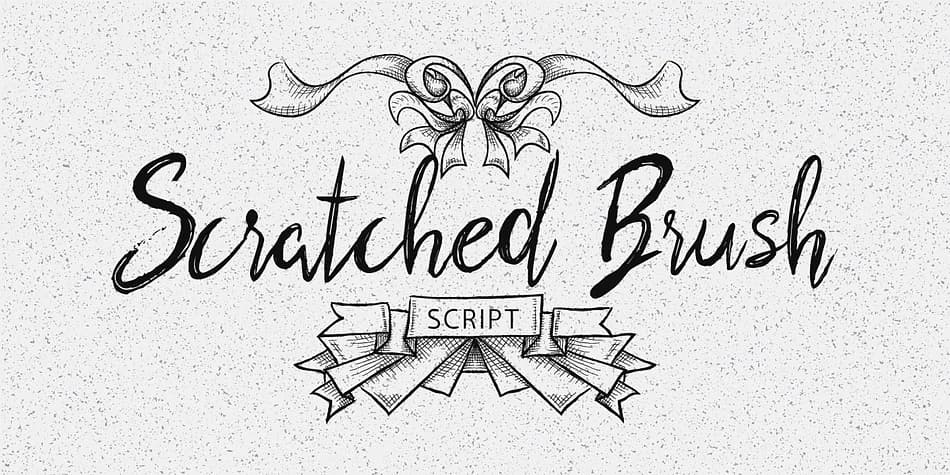
The raw, textured strokes of Scratched Brush Script capture the organic character of brush lettering without looking computer-generated. Designed by Pedro Teixeira, this casual script channels the natural imperfections you get from real dry brush work, giving it an approachable, hand-drawn quality that feels genuinely authentic and lived-in.
What sets this font apart is its flexibility and thoughtful attention to detail. The alternate lowercase characters let you swap glyphs within words, breaking up repetition and adding visual interest to your compositions. This makes it work especially well for wedding invitation suites, Etsy product labels, indie cosmetics packaging, and DIY craft signage where that artisanal aesthetic truly matters. You can also use it confidently for greeting cards, hand-lettered menu cards, and small-batch stationery projects.
The brushed texture runs through every letterform, reinforcing the handmade feel across headlines and display text. It's the kind of typeface that rewards a little attention: viewers sense the craftsmanship in the stroke weight variation and rough edges. Both freelance designers building client brands and makers creating product packaging will find that Scratched Brush Script feels natural and intentional on the page. Grab it on Creative Fabrica and start exploring what those alternates can do for your next project.
Scratched Brush Script Font is a script font that shines as a display or heading face. Pair it with a clean sans-serif or serif font for body text β the contrast creates a clear hierarchy while the two styles stay balanced and easy to read.
Scratched Brush Script Font